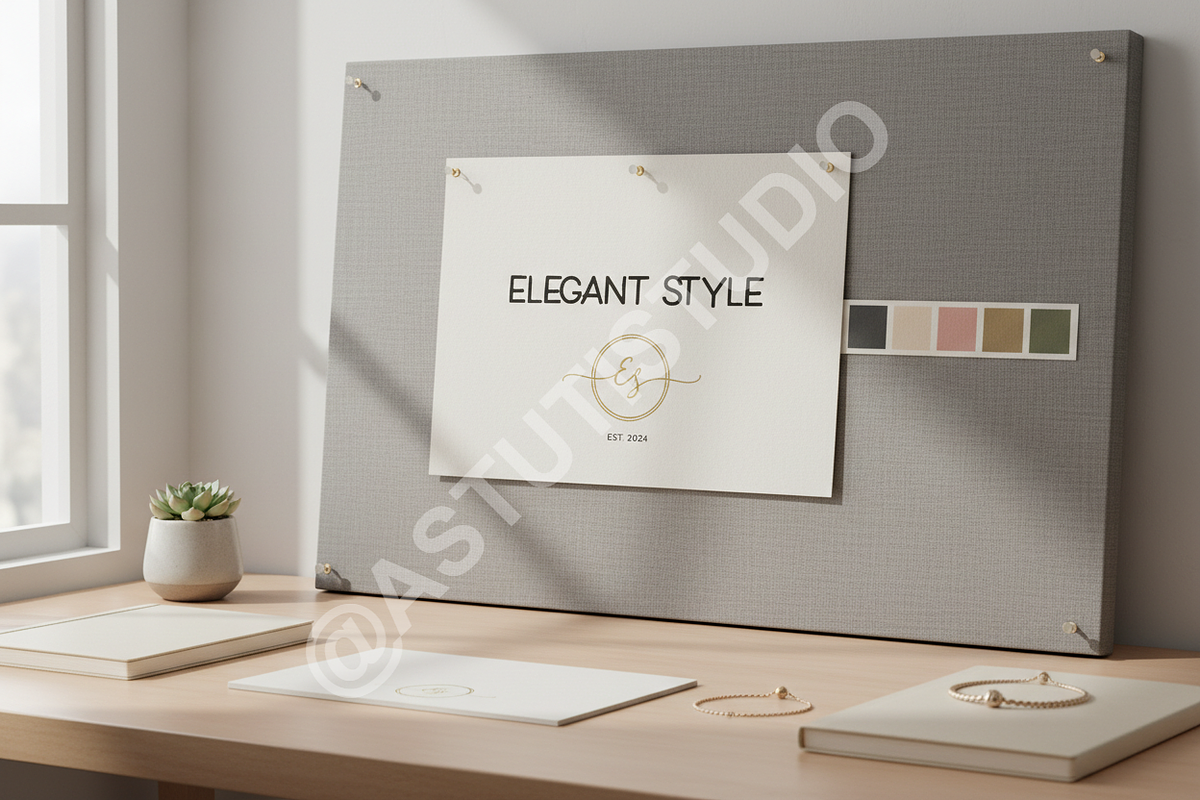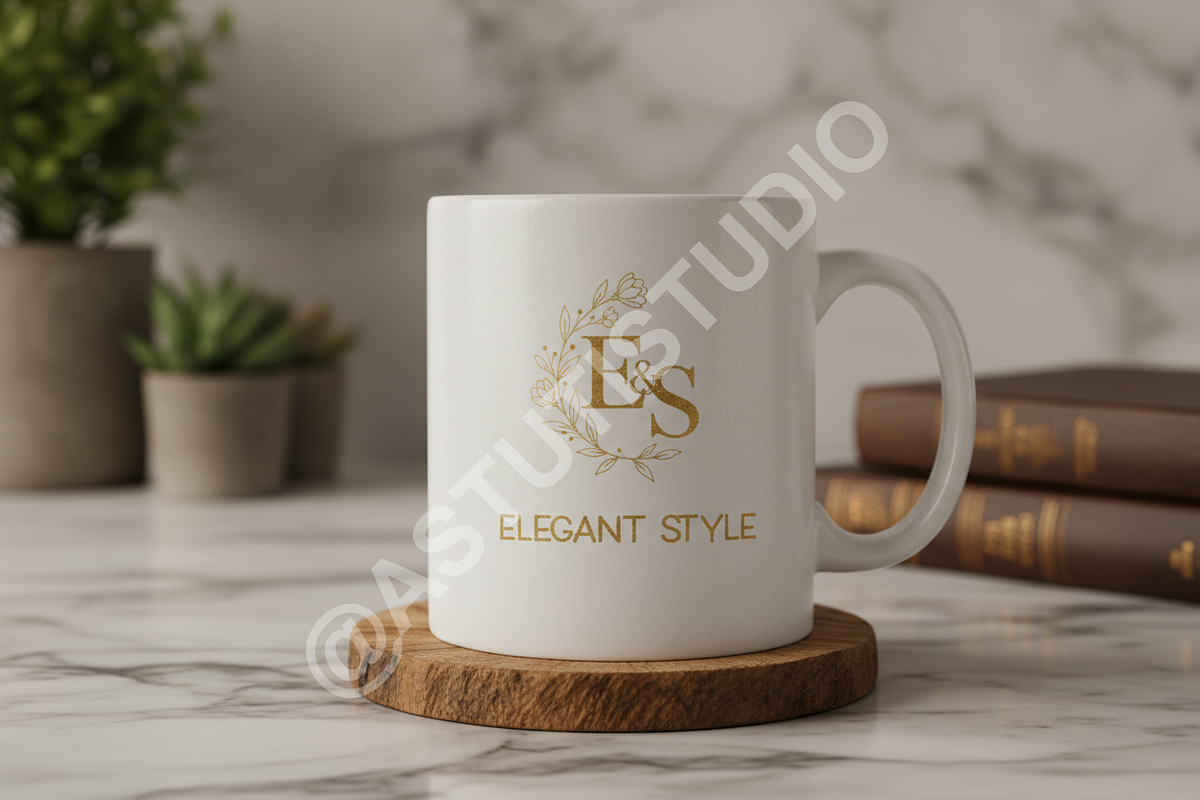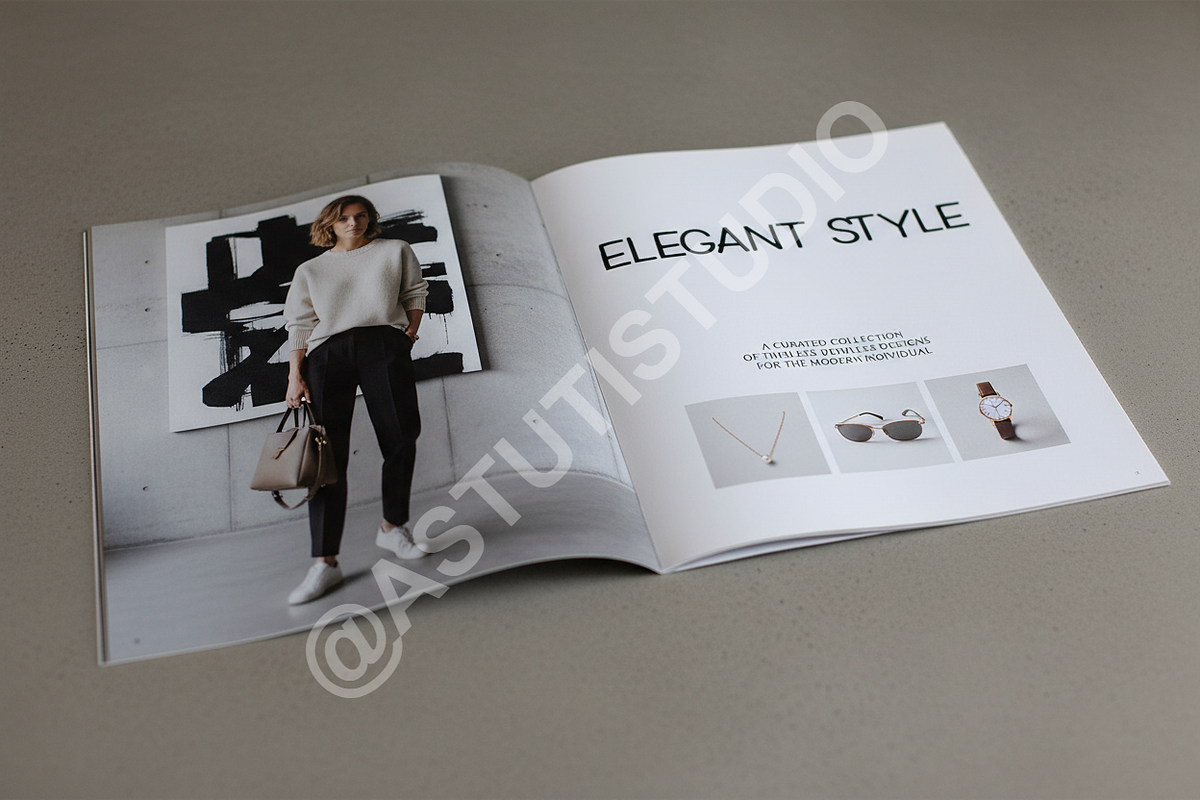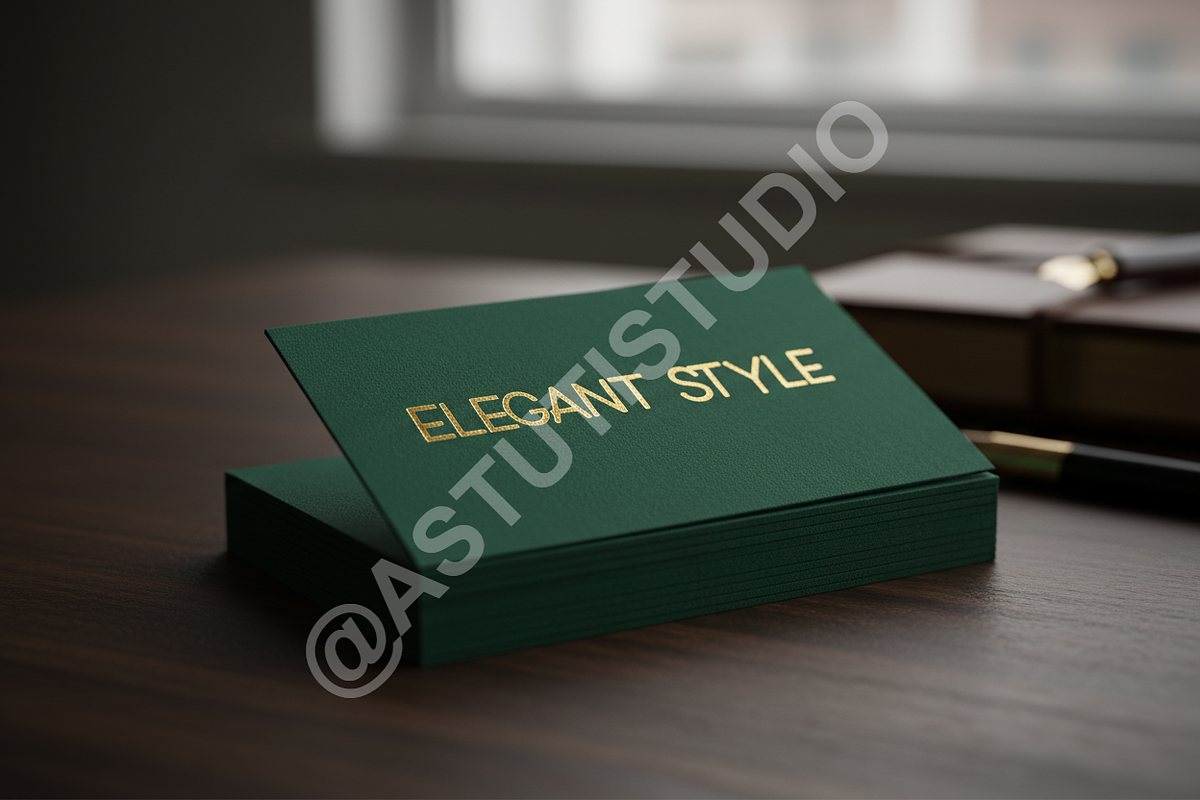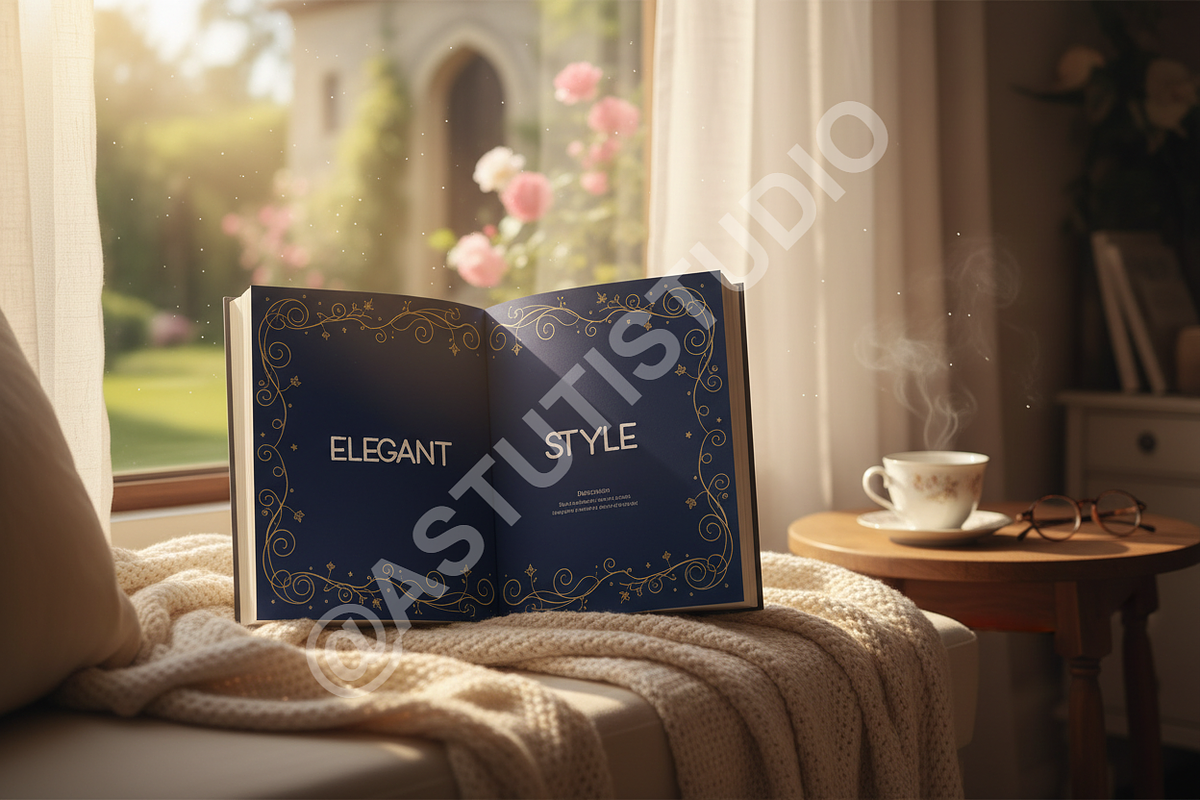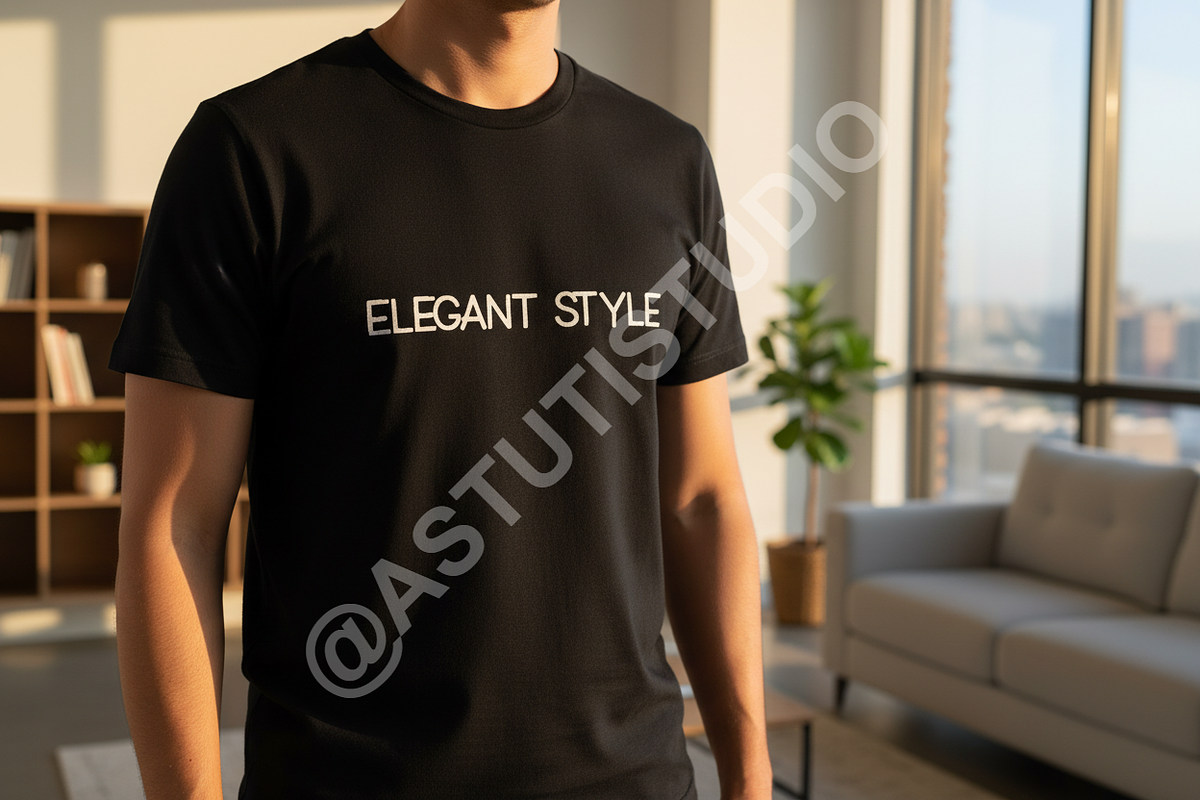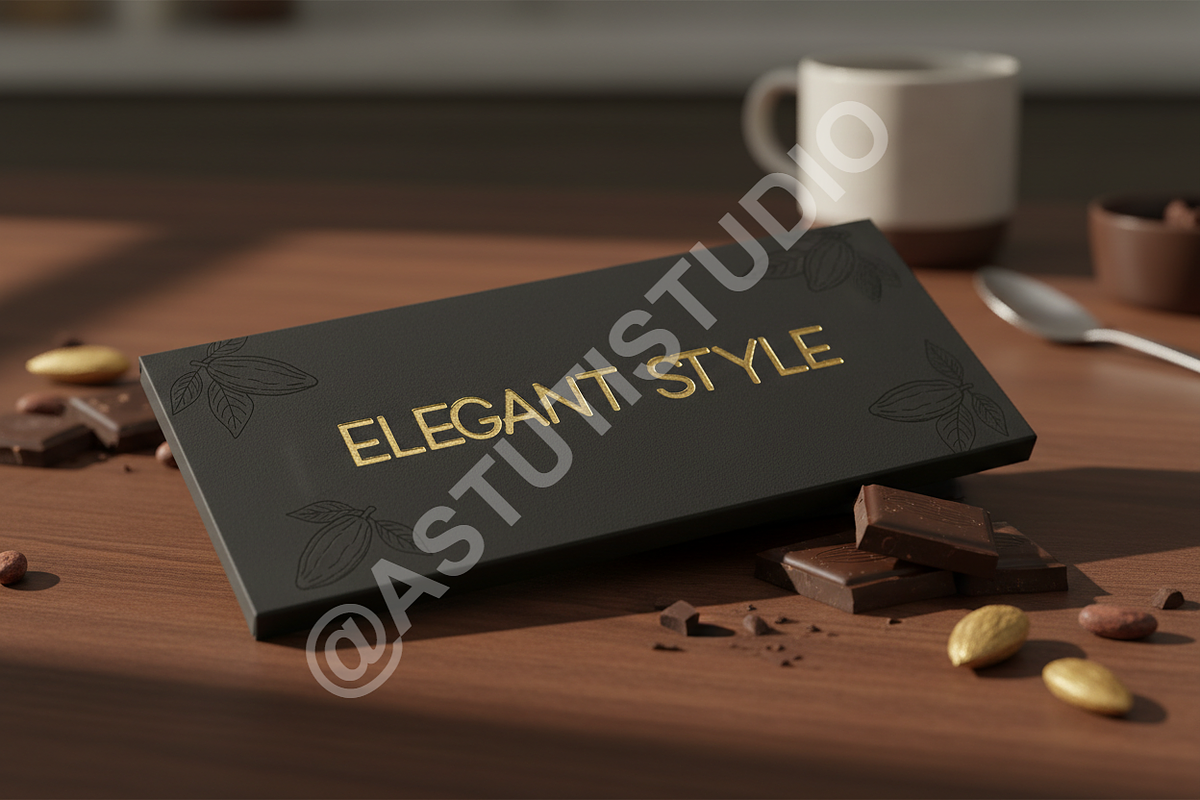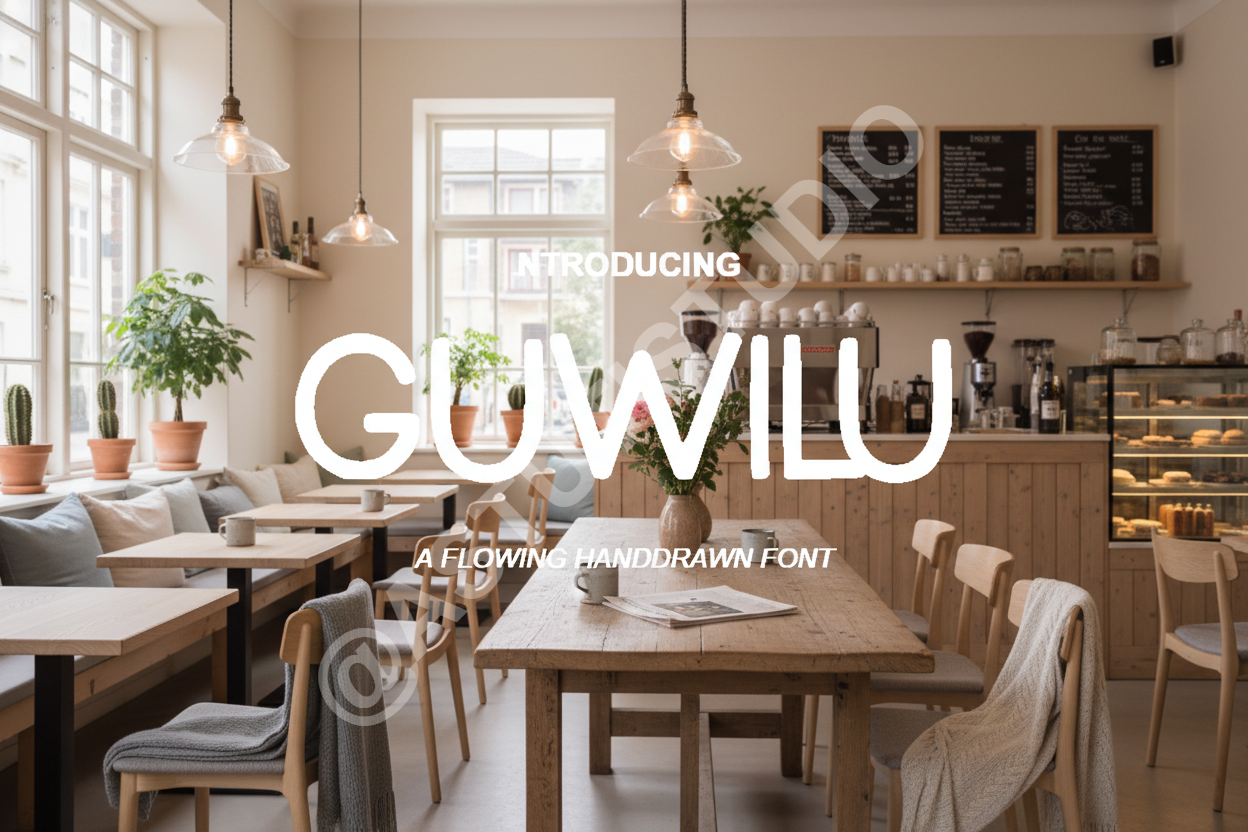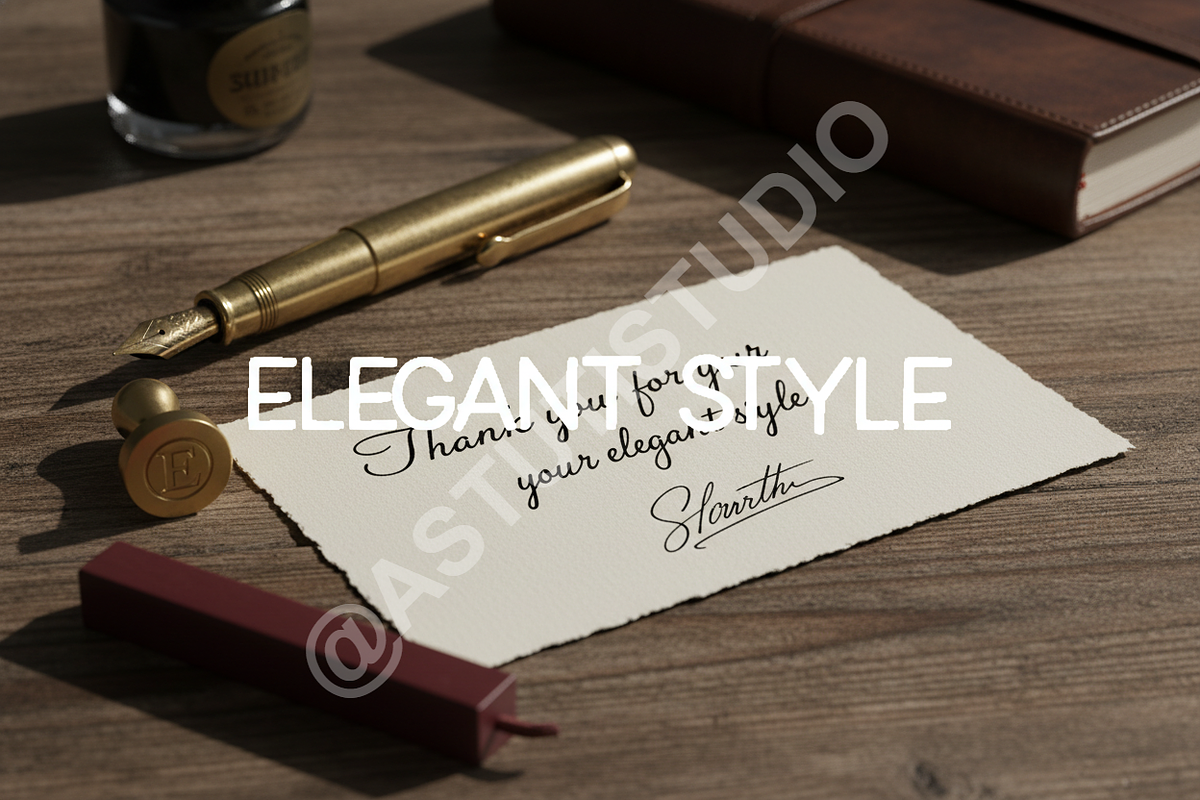
Guwilu - Elegant Serif Typeface for
INTRODUCTION Guwilu is a refined, contemporary serif font designed for high-end aesthetic appeal. Its balanced proportions and delicate curves bring a sense of timeless sophistication to any creative project. Designed specifically for brands that value elegance and clarity, Guwilu bridges the gap between classic typography and modern minimalist design.
PERFECT FOR This typeface is an ideal choice for luxury branding, high-fashion editorial layouts, minimalist social media content, and high-end wedding stationery. Whether you are crafting a logo for a boutique agency or designing a layout for a premium magazine, Guwilu ensures a professional and polished finish.
- Clean, high-contrast serif lines
- Elegant ligatures and alternate characters
- Full multilingual support for global reach
- Optimized for both print and high-resolution digital displays
- Precise kerning and balanced spacing